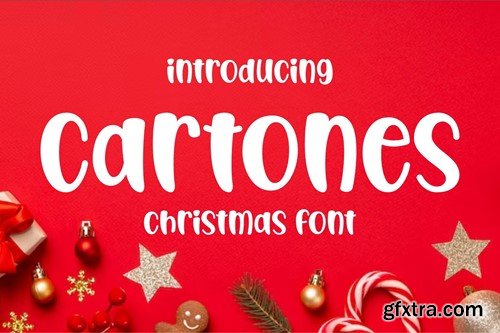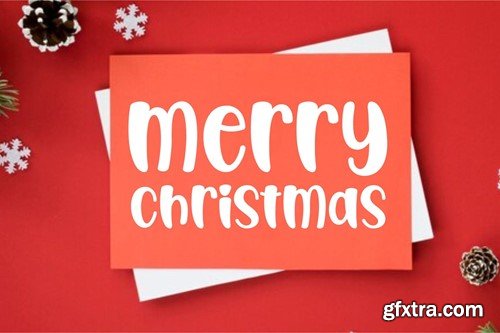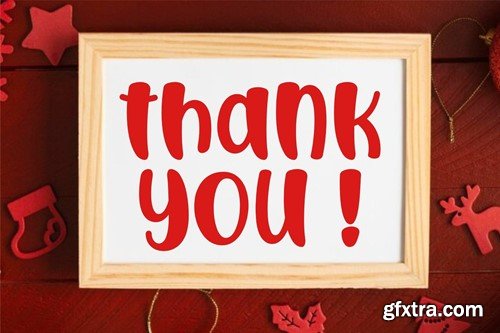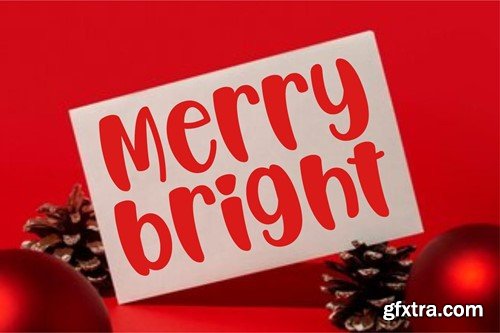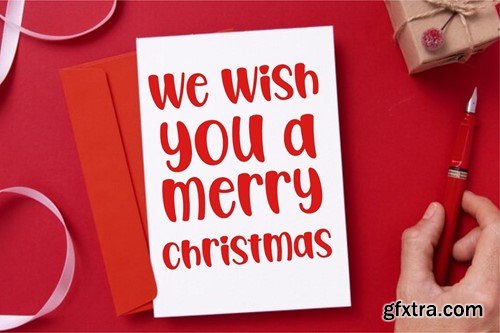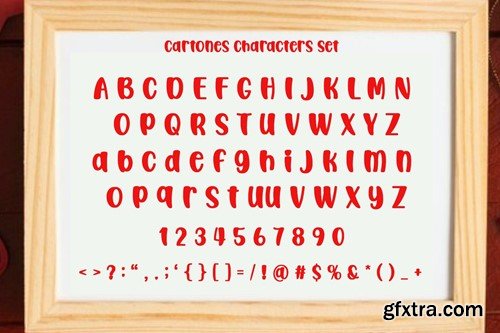
Cartones Font - A Modern Christmas Font HKD2WWQ
Cartones Font - A Modern Christmas Font
• New Font, this is one of our suitable fonts to complement your digital and print creative products. It's ideal for holiday-themed greeting cards and any craft project that requires a warm touch. This font is perfect for posters, social media posts, branding, personal projects, etc.
Introducing
• Uppercase and lowercase alphabet A-Z
• Numeral & Punctuation